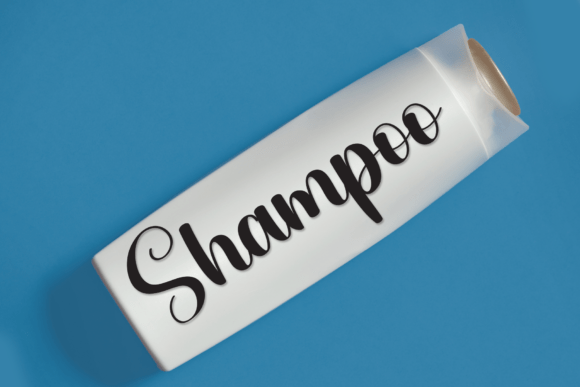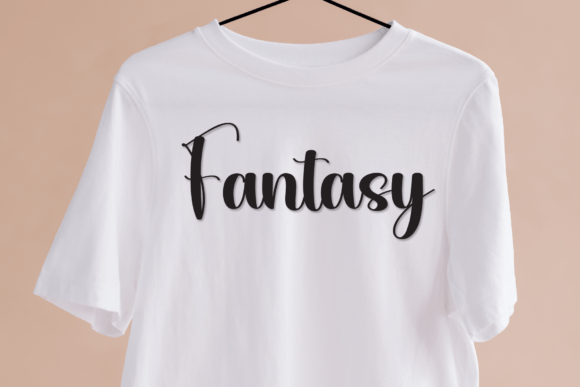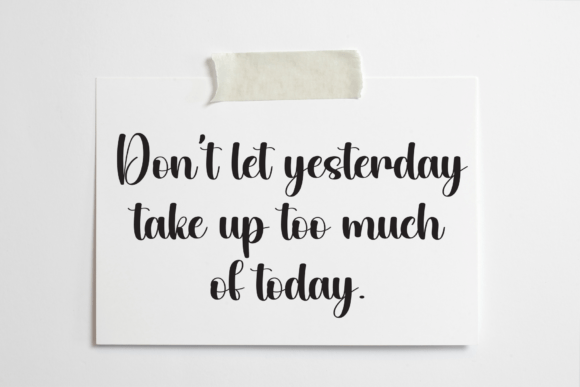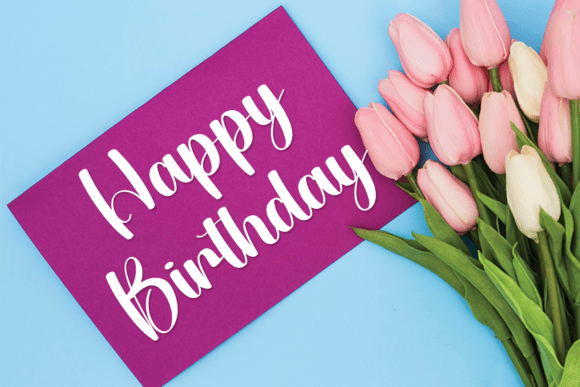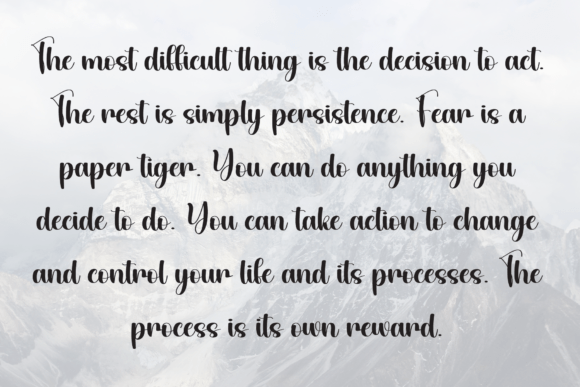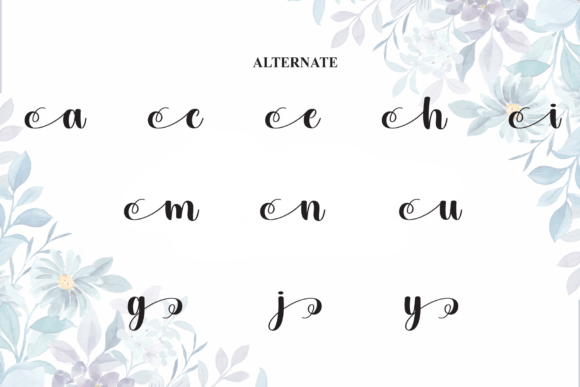
Adding a Touch of Elegance: The Power of Calligraphy Font
As a designer, there’s nothing quite like the thrill of bringing a project to life. You’ve got a vision, a message, and a deadline – but sometimes, it’s the little details that make all the difference. That’s where the Calligraphy Font comes in, adding a playful yet refined handwritten touch to your designs. This beautiful typeface is perfect for those who want the elegance of traditional ink-work but with a modern, youthful twist.
Whether you’re creating birthday invitations, boutique branding, or social media quotes, the Calligraphy Font is a valuable asset in your design toolkit. Its thick, confident downstrokes and whimsical flourishes give it a unique, hand-lettered look that instantly elevates any project. And with PUA encoding included, you can easily access all special characters and decorative elements without additional software.
Key Features of Calligraphy Font
- Font Style: Elegant, cursive script with flourishes and decorative elements, ideal for formal invitations, certificates, and wedding stationery.
- Unique Characteristics: Distinctive letterforms, swashes, and ligatures that add a touch of sophistication and elegance to any design, making it perfect for special occasions and formal events.
Calligraphy Font Review
When I first laid eyes on the Calligraphy Font, I was immediately drawn in by its elegant and refined aesthetic ✨. The font’s delicate flourishes and curvaceous lines evoke a sense of luxury and sophistication, making it perfect for high-end branding and design projects. The font also comes in a range of styles, from formal to playful, giving users a lot of flexibility in terms of tone and atmosphere.
Limits and Challenges
While the Calligraphy Font is a beautiful and versatile font, it does have some limitations ⚠️. One major issue is that the font can be quite difficult to read in smaller sizes, particularly for users with vision impairments. Additionally, the font’s complexity can make it challenging to pair with other fonts and design elements, requiring more expertise and experimentation to get it right.
Overall, I would give the Calligraphy Font 4 out of 5 stars. While it has some limitations, its unique aesthetic and high level of customization make it a great choice for designers who want to create high-end, eye-catching designs. With some careful consideration and experimentation, I’m confident that designers can get the most out of this beautiful font.
- Delicate flourishes and curvaceous lines
- Range of styles, from formal to playful
Getting the Most Out of Calligraphy Font
Here are some tips to help you get the most out of calligraphy font: Use it for formal or decorative text, such as wedding invitations or certificates. Experiment with different font sizes and colors to create visual interest. Use it in combination with other fonts to create a unique and eye-catching design.